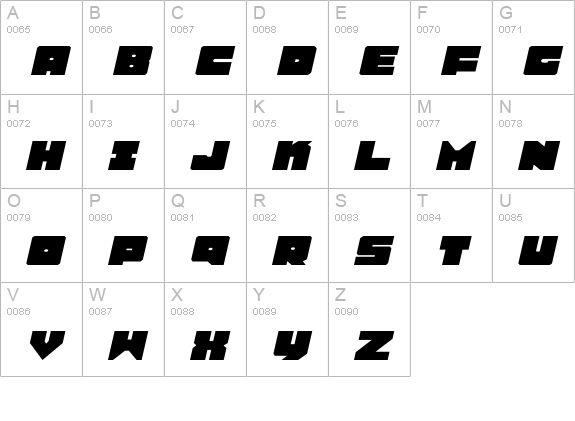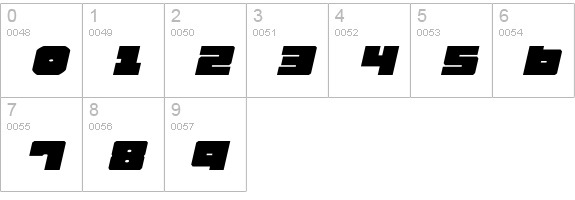
Lobo Tommy ExpItalic is a sleek and modern typeface that exudes sophistication and elegance. With its unique italic style and elongated letterforms, this font is perfect for adding a touch of flair to any design project. The sharp angles and stylish curves of Lobo Tommy ExpItalic make it stand out from the crowd, making it a popular choice for those looking to make a bold statement. What's even better is that Lobo Tommy ExpItalic is available for free download at FontsMarket.com. This means that you can easily access this stunning font without having to break the bank. Whether you're designing a website, creating a logo, or working on a poster, Lobo Tommy ExpItalic is sure to elevate your project to the next level. Download it today and let your creativity shine with this elegant and eye-catching typeface.